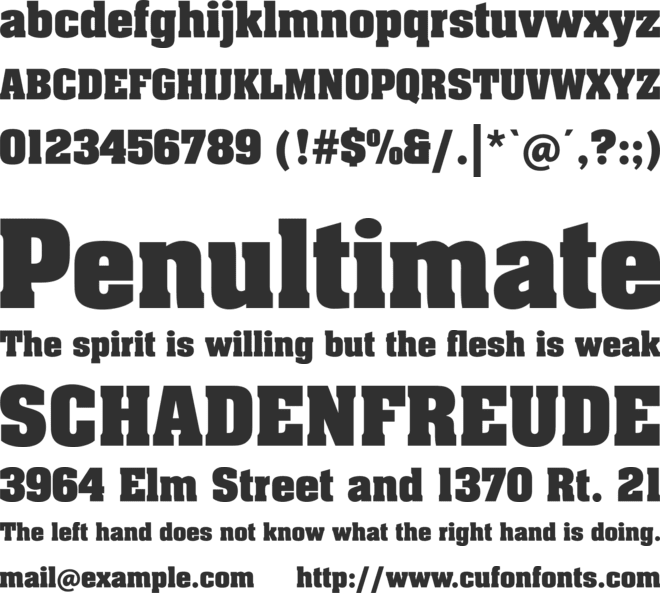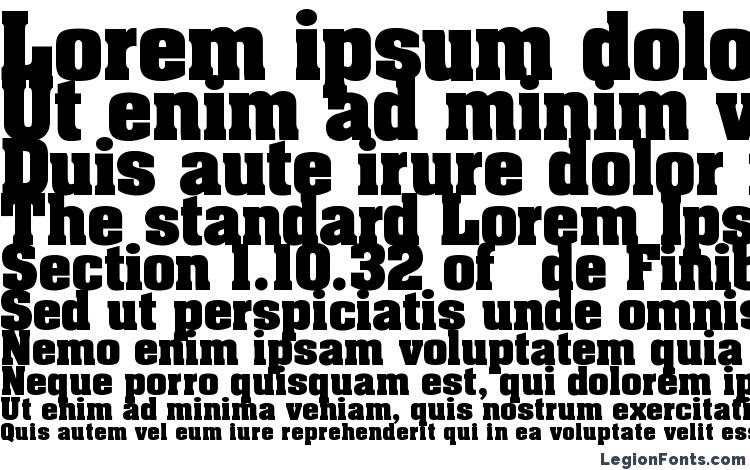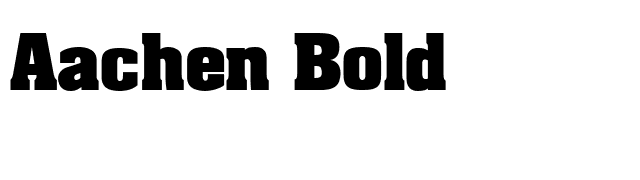
Aachen Bold Font Generator
Slab serif, heavy, initials, college, black, bold Aachen bold was designed by colin brignall in 1969.
Aachen bold font generator. Introducing aachen font that is a truetype font family. You can use the aachen bold strong to create interesting designs,. The font used to write liberty city stories is called aachen bold.
The itc took the charge for making it for the first time since 1969. Miami vice font here refers to the font used in the title card of miami vice, which is an american. 45 professional aachen 20 outline fonts to download.
Colin brignall designed aachen font for letraset in 1969, intending it mainly as a title font. Aachen bold was designed by colin brignall in 1969. Aachen bold strong is free for personal use only.
Aachen bold is an extra bold typeface with very narrow counters and short slab serifs. To celebrate its 10 year anniversary, rockstar games brings grand theft auto: Download the aachen font for free or use it to generate a fancy logo using the custom graphics generator.
Colin brignall designed aachen font for letraset in 1969, intending it mainly as a title font. The font used for album title on the cover is aachen bold. Its strong, concise image makes it particularly good for text which should stand out.
As a display type, this face is recommended for use over 24 point for titles, headlines or advertisements. Click now to create a custom image with your own words that you can download. If you recognize the font from the samples posted here don't be shy and help a fellow designer.
52 professional boyz n the hood fonts to download. That is aachen font and it was designed in 1969 by the itc. Alan meeks & colin brignall are the font designer makes this perfect font family.
These svg cut files are great for use with silhouette cameo cricut and more. If you want to create professional printout, you should consider a commercial font. Its boldness suggests power and will correspond to solid messages where visual impact is important.
Click to find the best 1 free fonts in the aachen style. Download aachen medium plain font free for windows and mac. Download free aachen bold font download ttf otf woff svg font generator
We have a huge collection of around 72,000 truetype and opentype free fonts, checkout more on. Aachen font is belonged to slab serif font and its bold typeface with heavy strokes make it different from other. Aachen bold plain font info.
Free download of akachen font. Masha and the bear is a russian animated tv series which follows the adventures of a little girl named masha and a fatherly bear that always keeps her from disasters. If you want to create professional printout, you should consider a commercial font.
If you want to create professional printout, you should consider a commercial font. Aachen bold is an extra bold typeface with very narrow counters and short slab serifs.